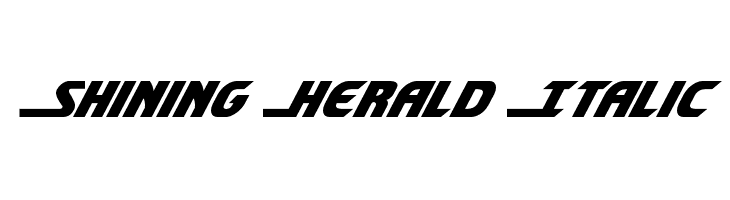
( Fonts by David Rakowski )
A bold, shattered-effect decorative font with dynamic and fragmented characters.
( Fonts by Ingo Zimmermann - www.ingofonts.com )
A modern font with artistic curves and angular elements, offering a playful yet functional design.
( Fonts by Jeri Ingalls - littlehouse.homestead.com )
A playful, wavy font with noodle-like curves and a whimsical style.
( Family Font Mart - www.h2o.or.jp/~orihikao/ )
A sleek, modern font with geometric and futuristic design elements.
( Fonts by Wildan Type )
Casual handwritten script font.
A bold, italicized font with a dynamic and energetic style.
A bold, 3D font with a filled interior and strong outline, perfect for impactful headlines.
A bold, brush-textured font with an energetic and artistic style.
An elegant, flowing script font with thin, delicate strokes and graceful curves.
设计师偏爱 Shotling, Amharareduced, idk tumblr Regular, JI Noodles and Telavision,因为其造型干净、适用范围广—— 从品牌识别到落地页、海报都能胜任。